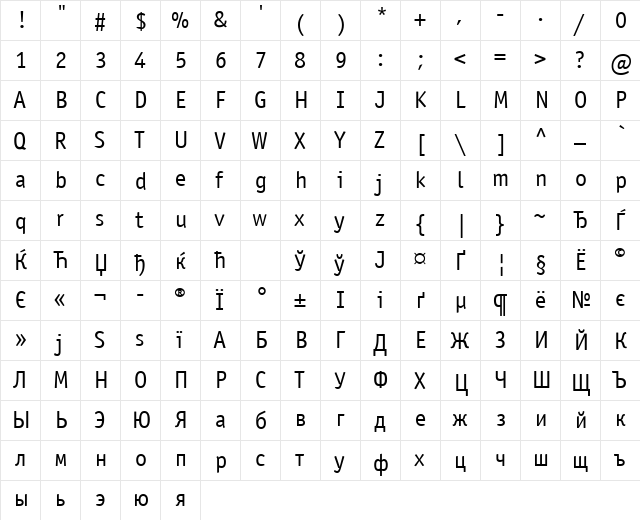
FT Content Provider Regular
Design Context for FT Content Provider Typeface
FT Content Provider takes a measured approach to typography — its balanced proportions and neutral character make it a reliable workhorse for both digital and print work.